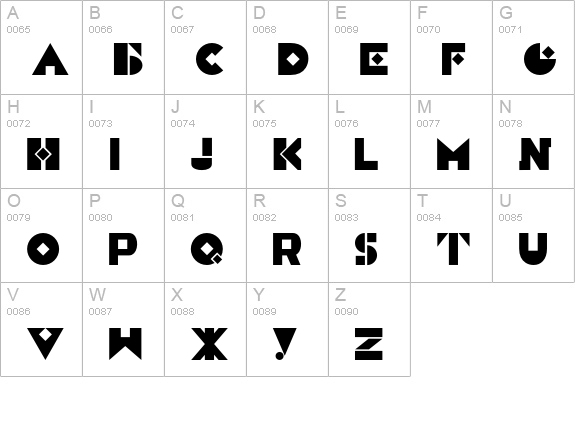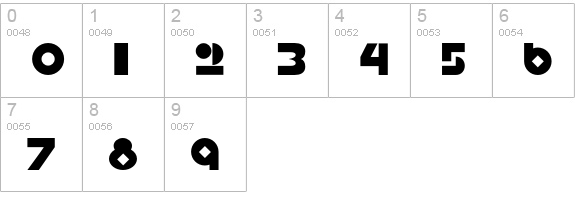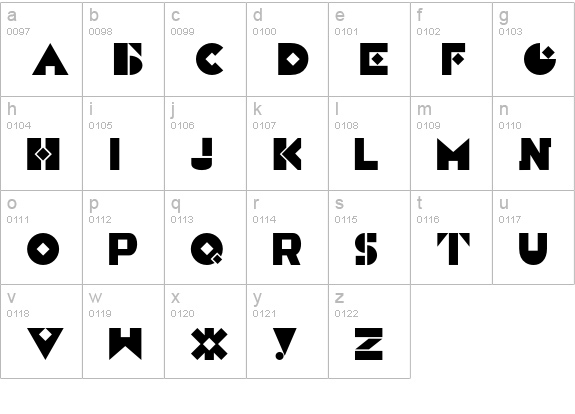
Constructivist-Regular is the standard, neutral variant in the Constructivist typeface family \xE2\x80\x94 well suited to general body text, paragraphs, and standard typographic work.
Constructivist-Regular is a modern and versatile font that seamlessly blends boldness with elegance. Its clean lines and geometric shapes give off a sense of strength and sophistication, making it perfect for a wide range of design projects. Whether you're creating a sleek logo, a stylish poster, or a professional website, Constructivist-Regular is sure to make a statement. This font is not only visually striking but also highly readable, making it a practical choice for both headlines and body text. Its versatility allows for easy pairing with other fonts and graphic elements, giving you endless creative possibilities. And the best part? Constructivist-Regular is available for free download at FontsMarket.com. So go ahead and elevate your designs with this stunning font today!